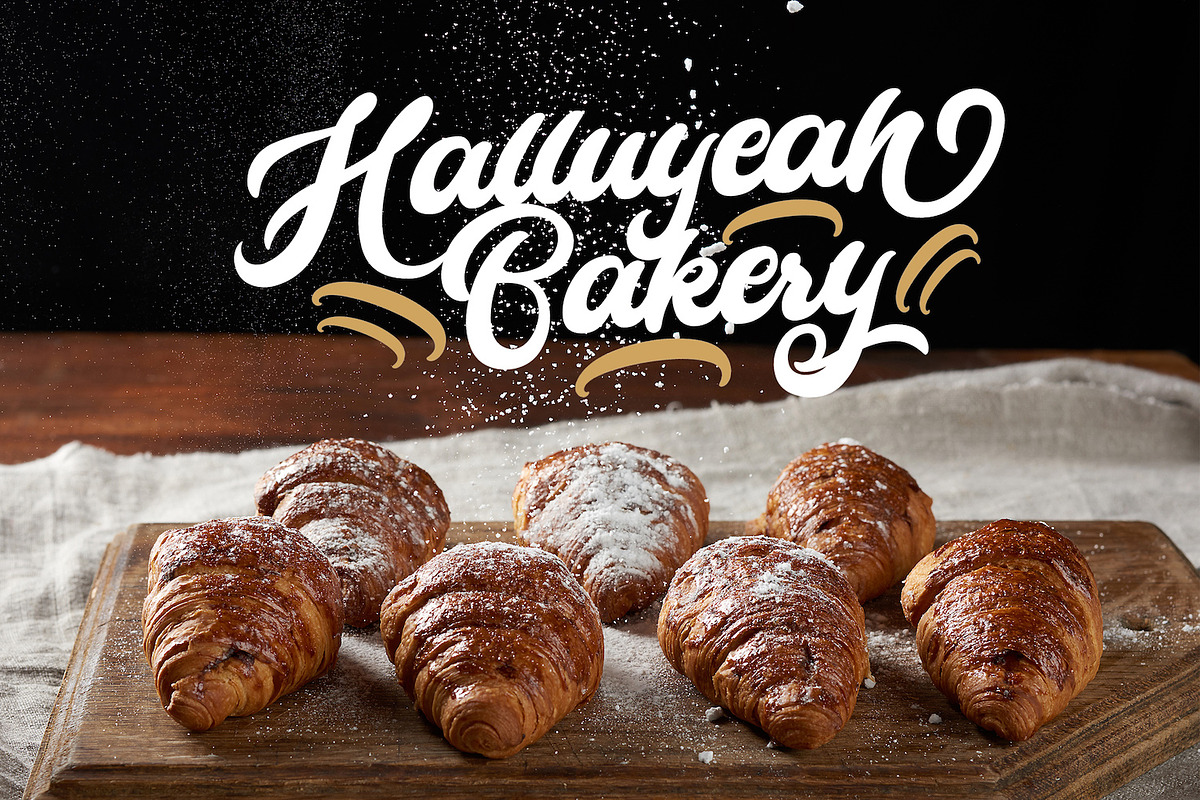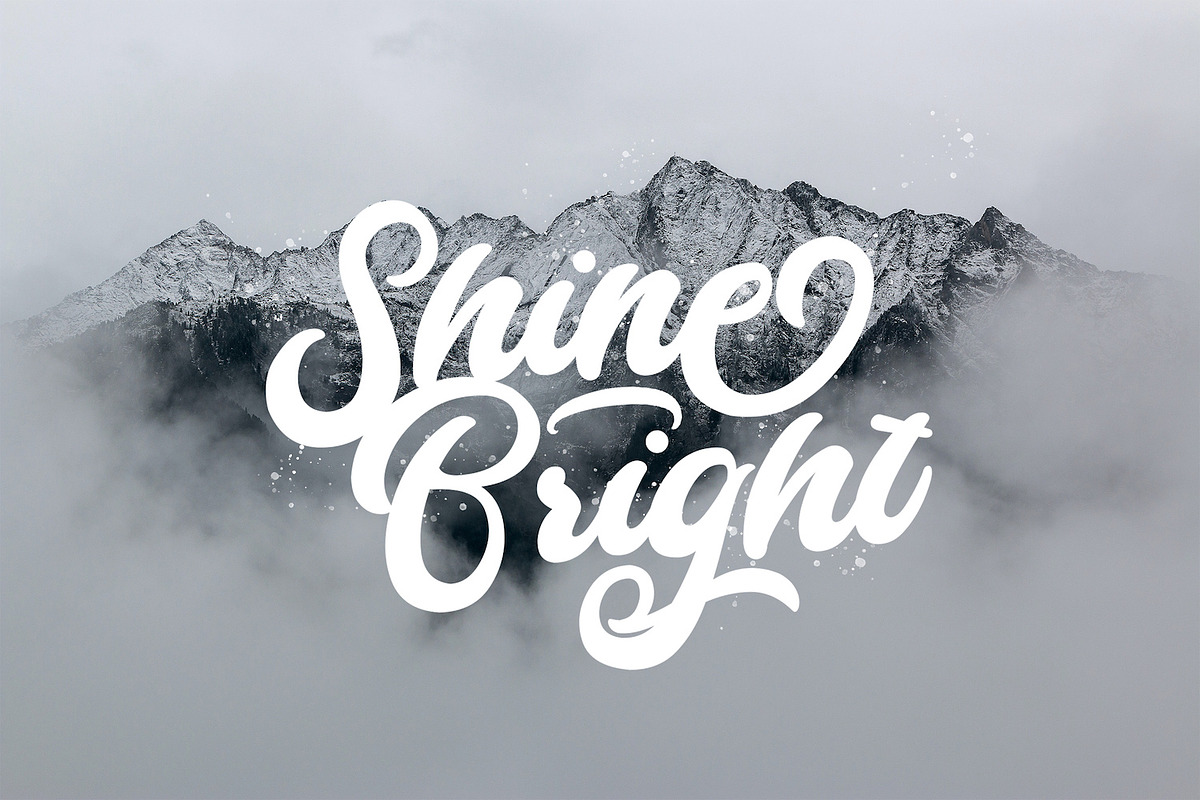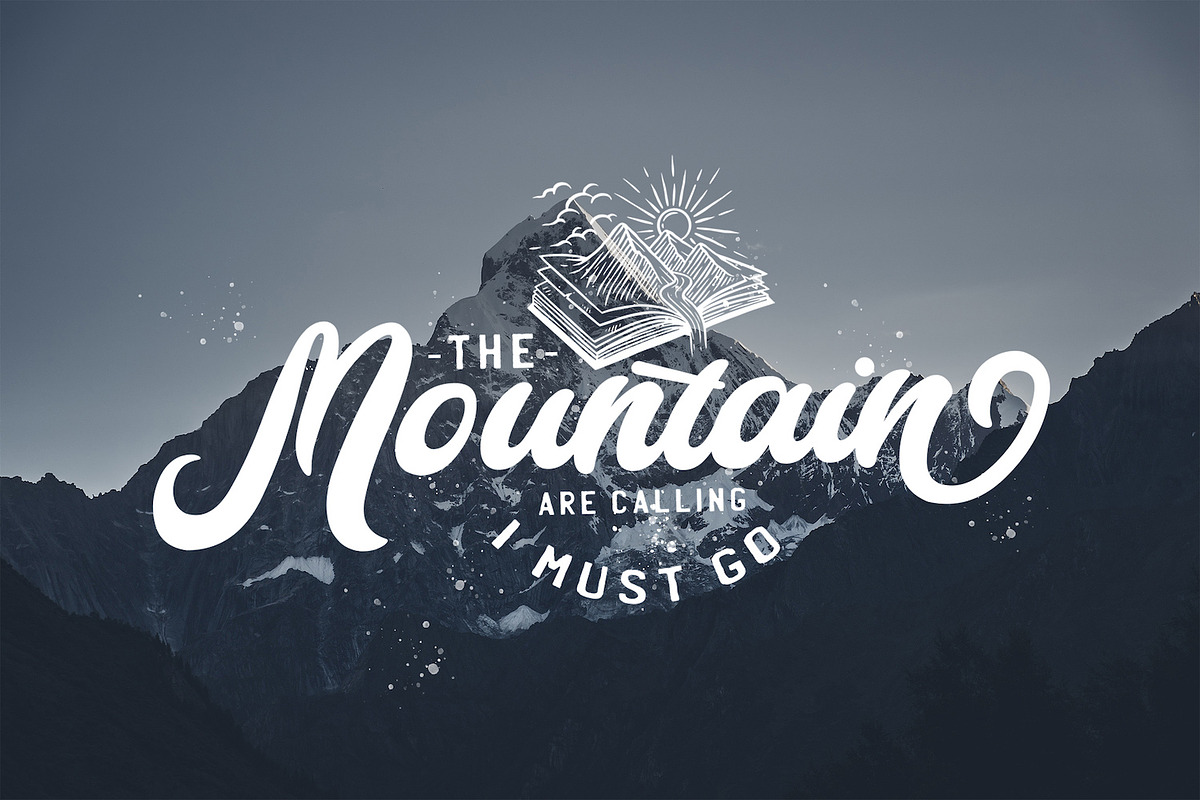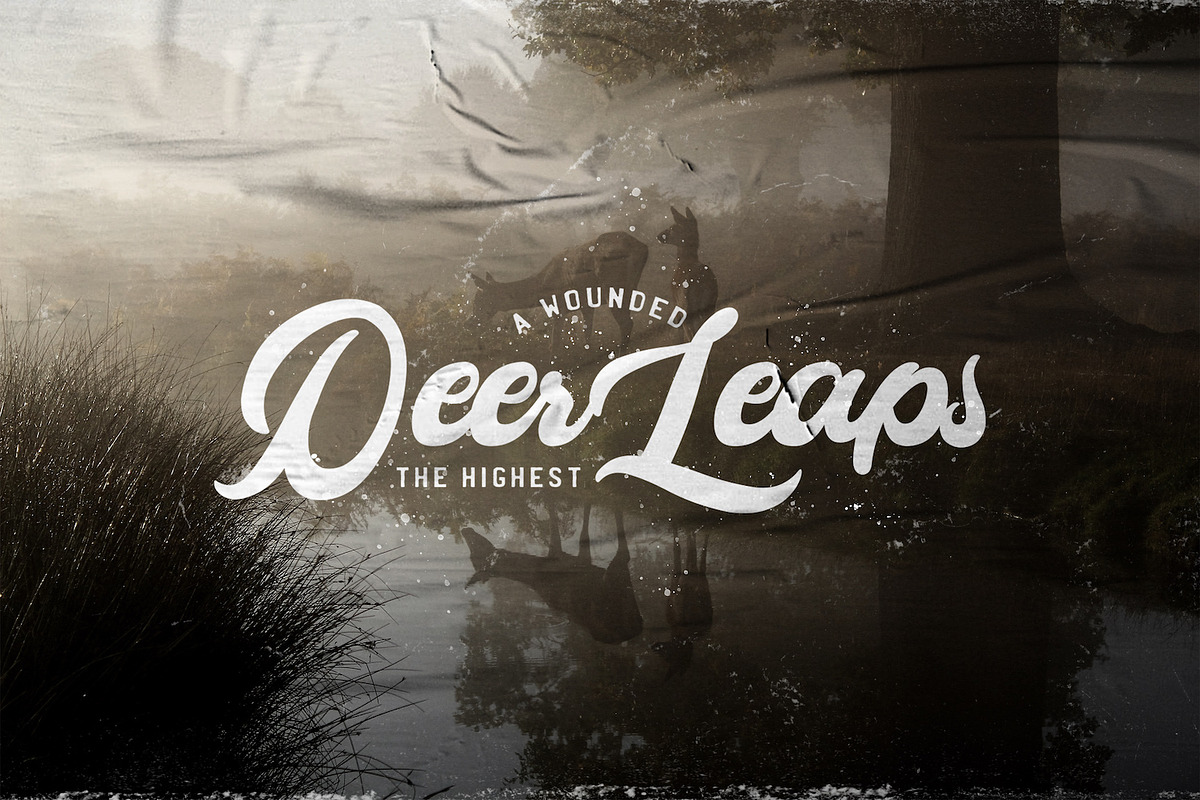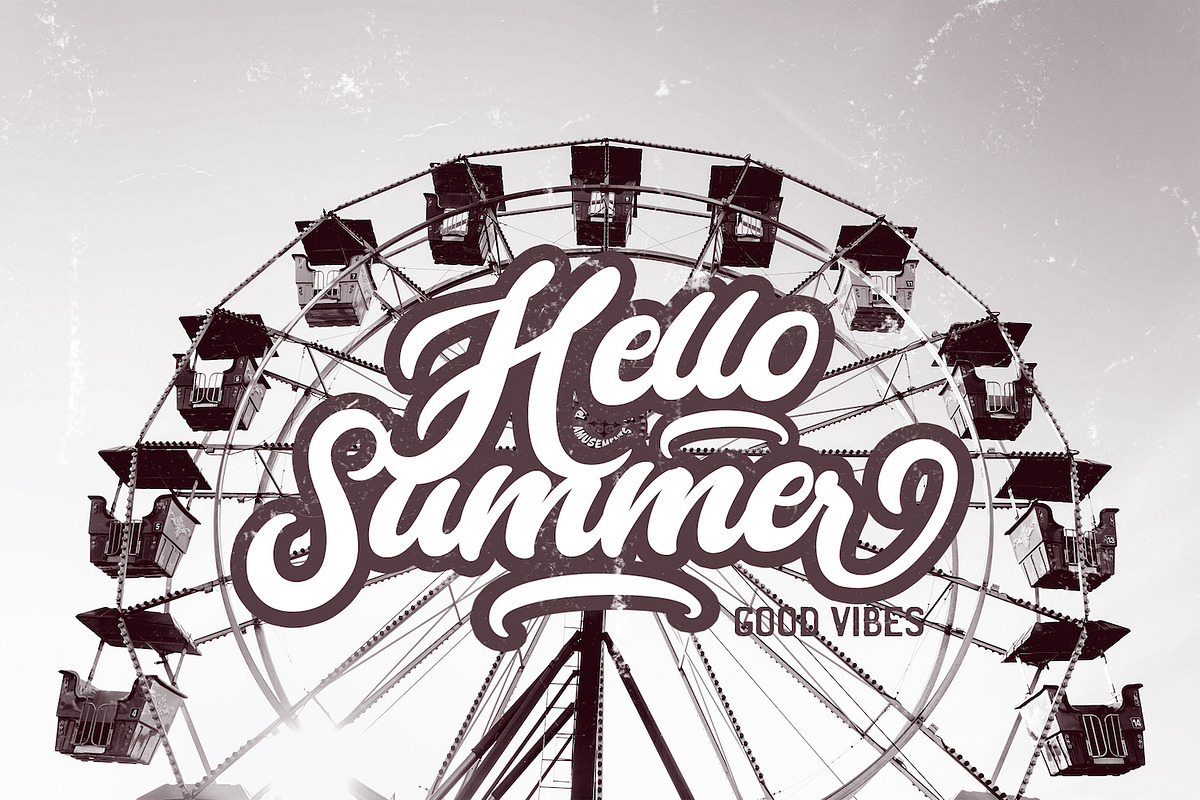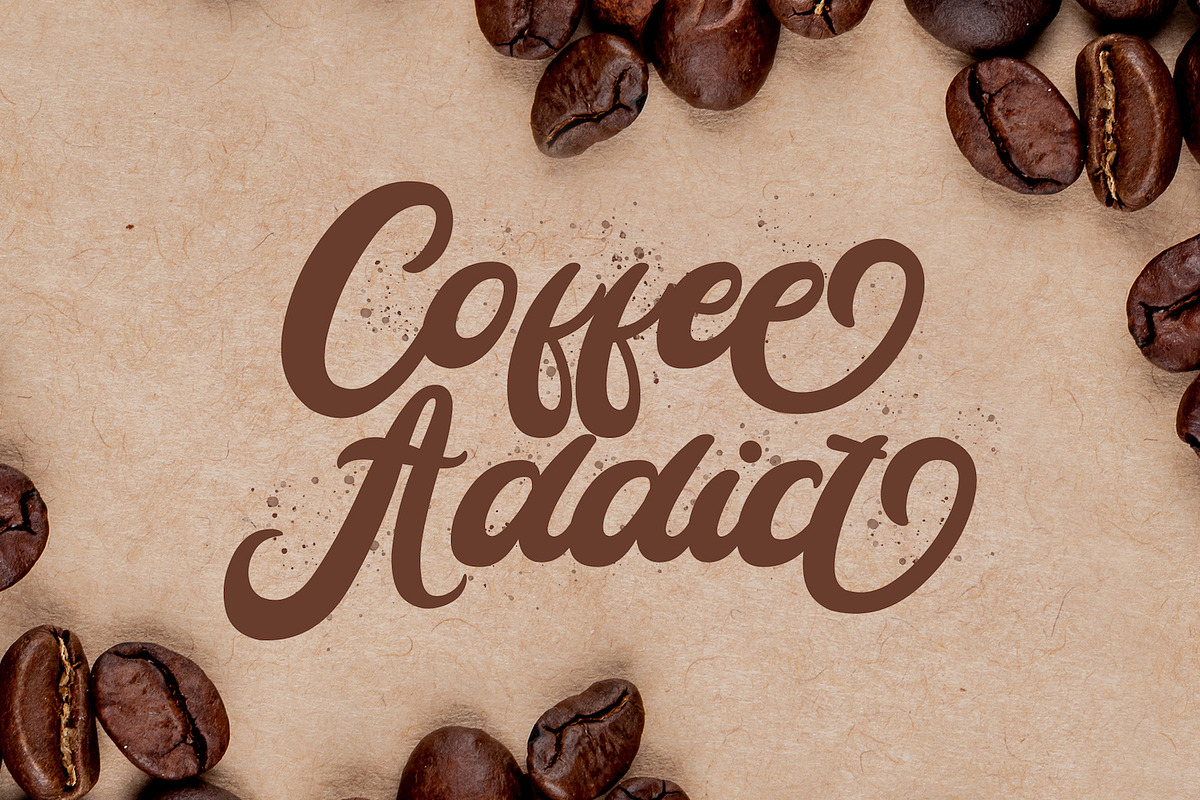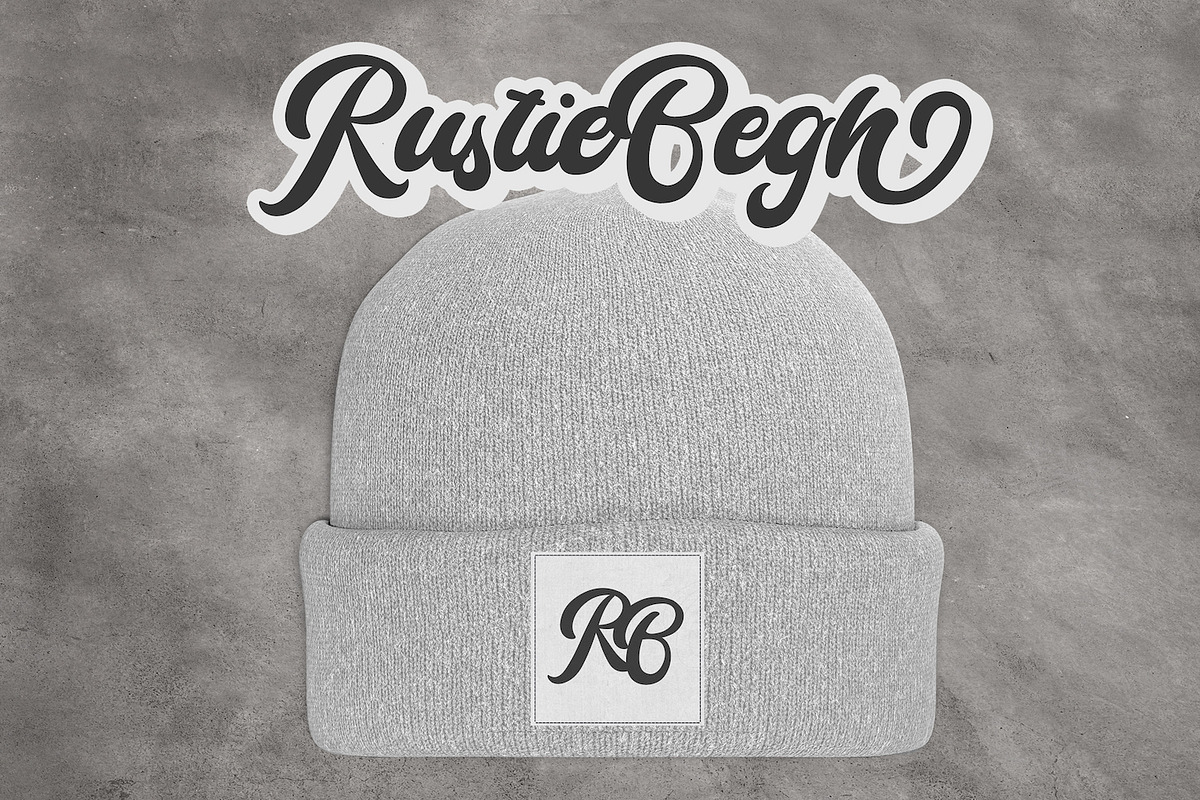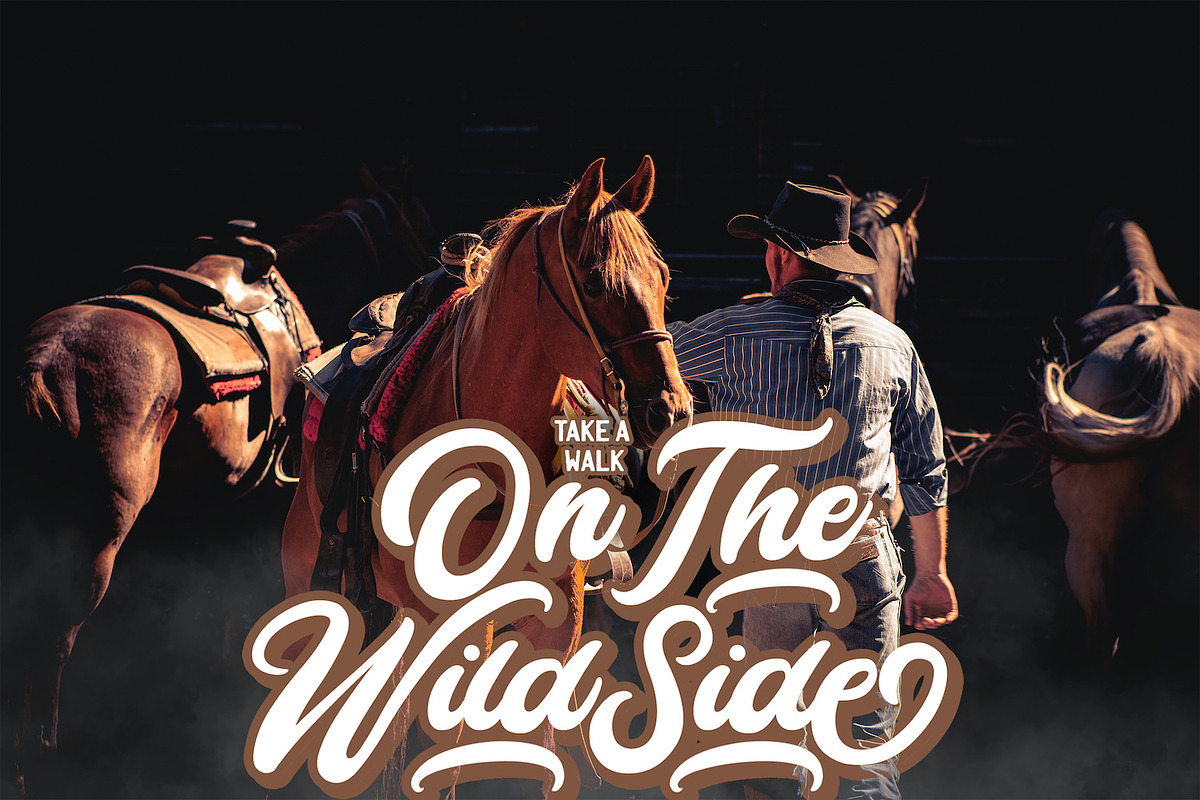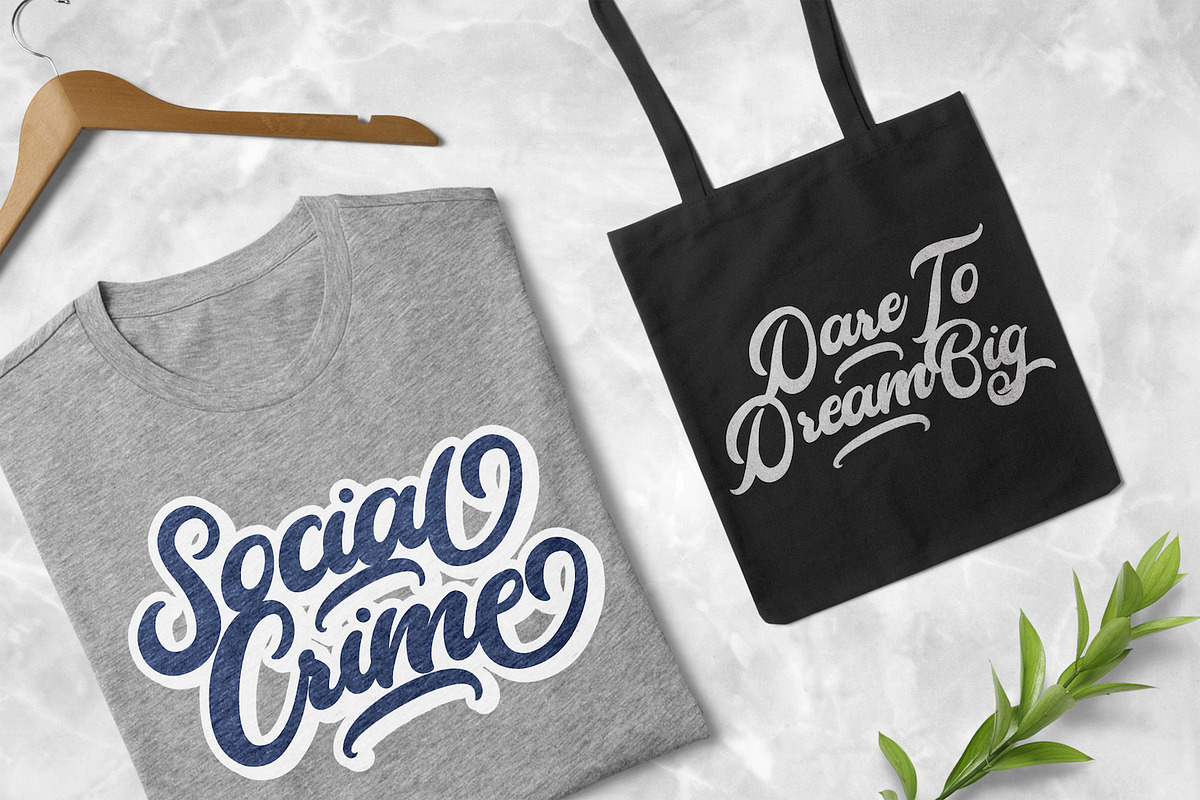
Cameliya - Bold Script Font
Introducing Cameliya - Bold Script Font
Cameliya is a retro bold script font. It is PUA encoded which means you can access all of the glyphs and swashes with ease! It features a varying baseline, vintage and retro taste, gorgeous glyphs and stunning alternates. Fall in love with its incredibly versatile style and use it to create spectacular designs!